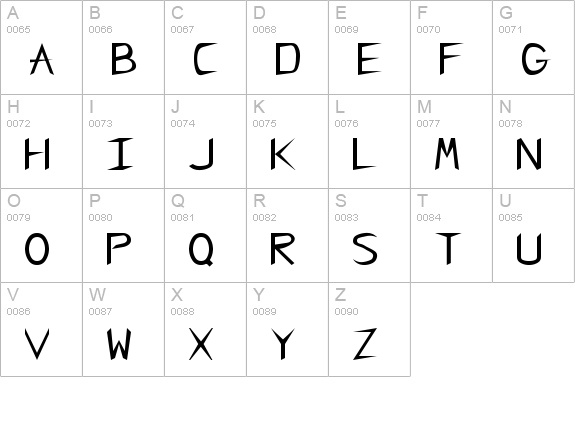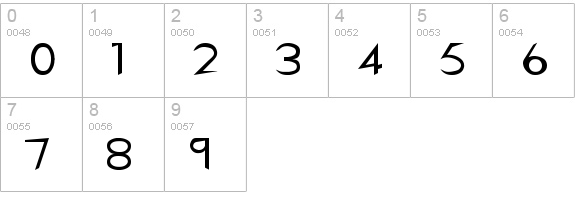
PCGregorianKK Font Details
PCGregorianKK is a stylish and elegant font that exudes sophistication and professionalism. With its sleek and clean lines, this font is perfect for a wide range of design projects, from corporate branding to editorial layouts. This font features a unique blend of modern and traditional elements, making it versatile and suitable for a variety of design styles. Its classic letterforms are infused with a contemporary twist, resulting in a font that is both timeless and on-trend. One of the standout features of PCGregorianKK is its extensive character set, which includes a wide range of special characters, ligatures, and alternates. This allows designers to create truly unique and personalized typography, adding a touch of individuality to their projects. What sets PCGregorianKK apart from other fonts is that it is completely free to download. You can easily access and enjoy this incredible font at FontsMarket.com, where it is available for immediate download. Whether you are a professional designer or a casual enthusiast, PCGregorianKK is a must-have font in your collection. So why wait? Enhance your designs with the elegance and versatility of PCGregorianKK today. Download it for free at FontsMarket.com and unleash your creativity with this exceptional font.